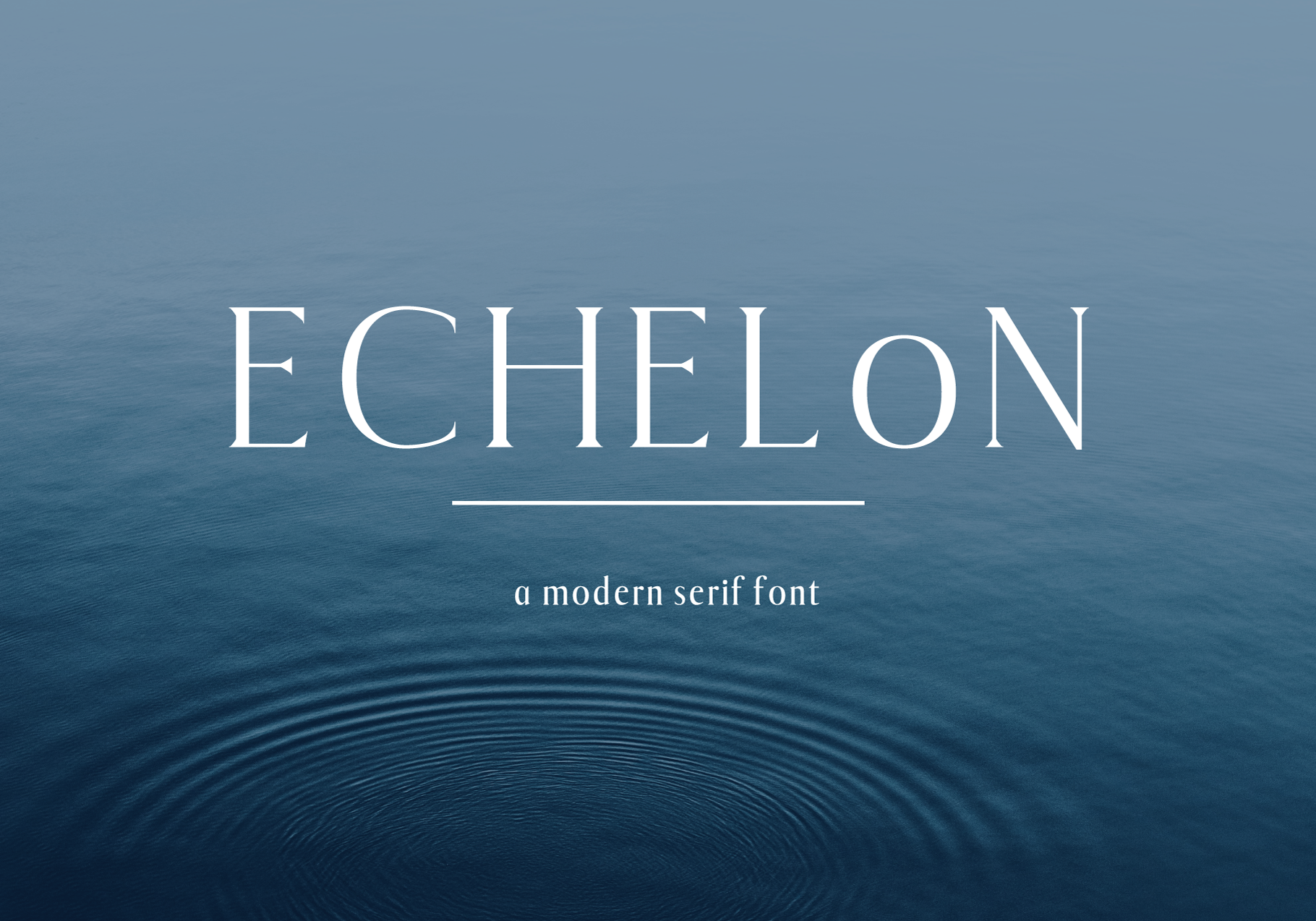
Echelon || A Modern Serif Typeface
Discover Echelon, a modern serif for making strong statements and powerful logos. With a unique capital "O", Echelon is a great typeface for creating one-of-a-kind branding and logo creations. Avaliable in 6 weights, both roman and italic.